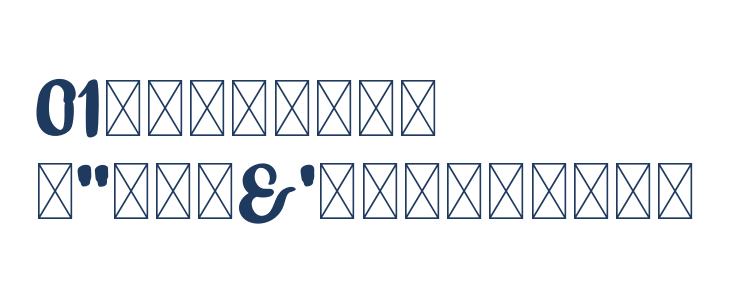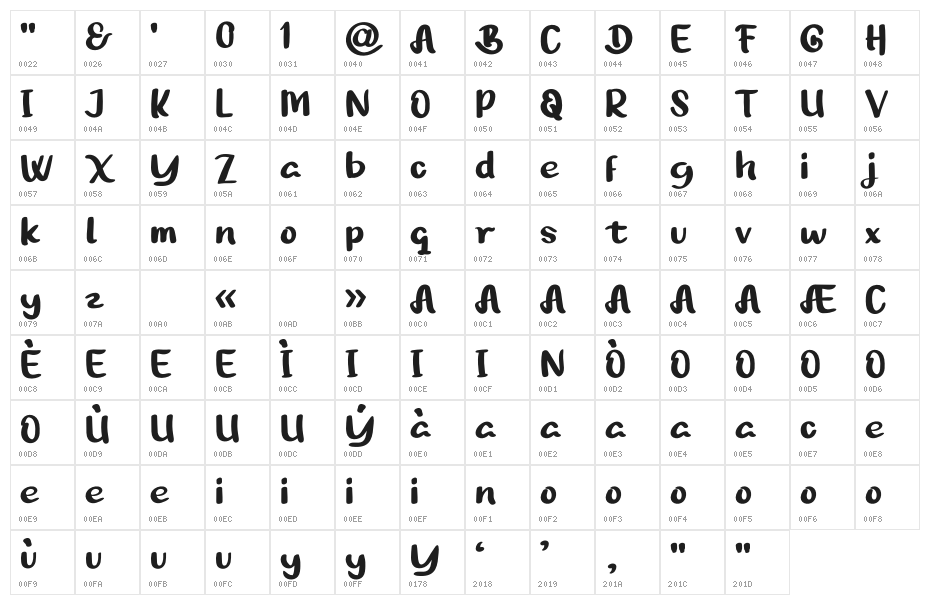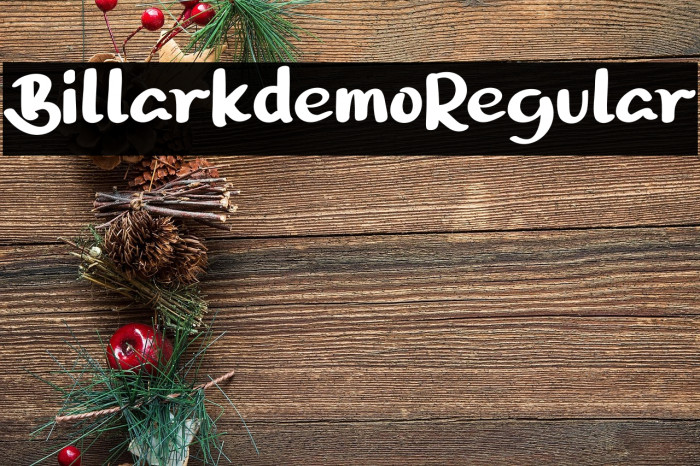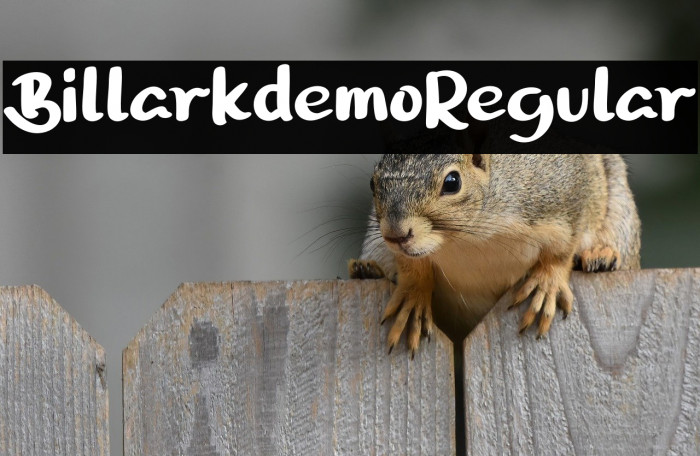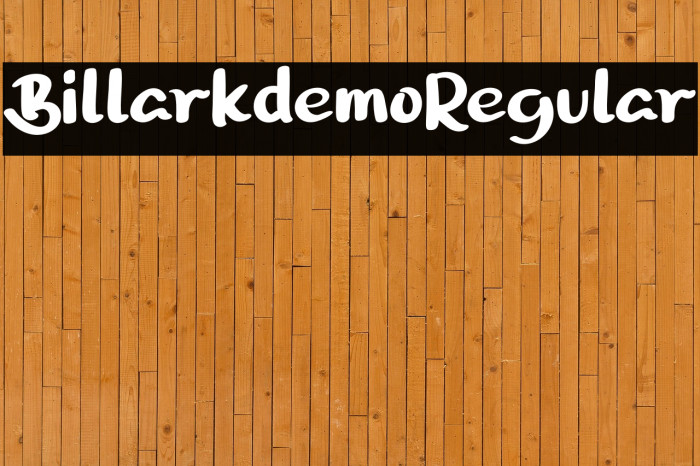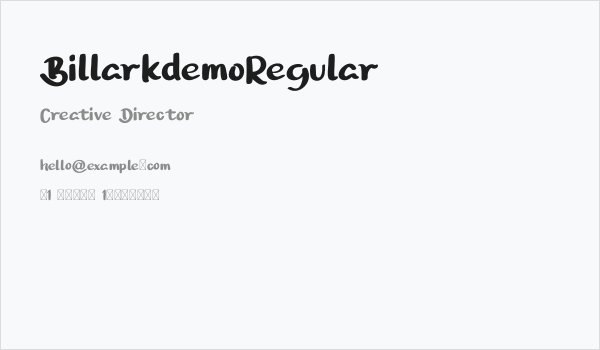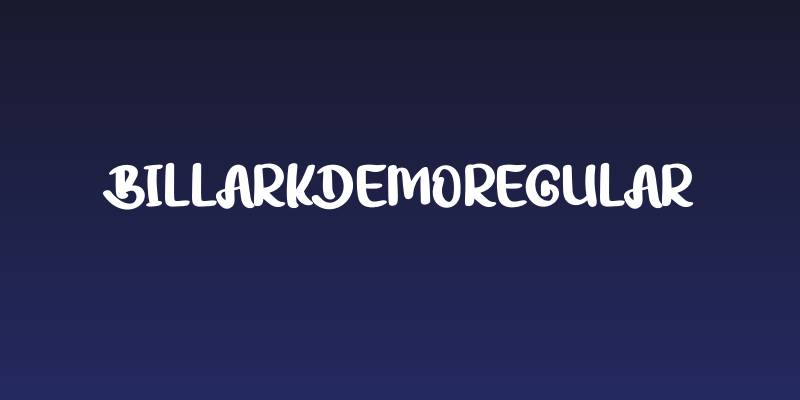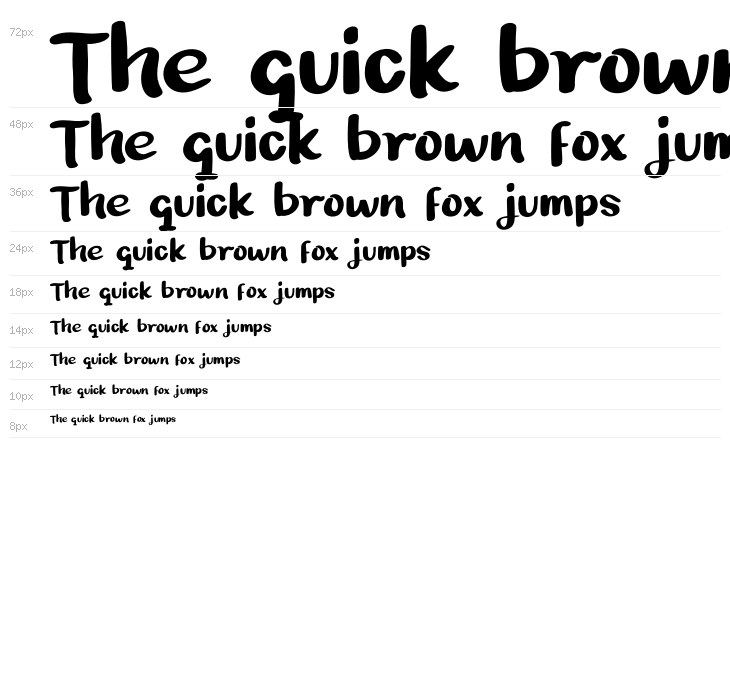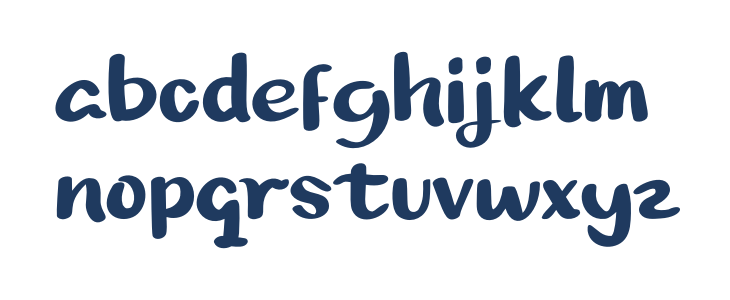
BillarkdemoRegular Font
BillarkdemoRegular Description
This font features a bold and playful style with rounded edges and a handwritten feel. The uppercase letters are slightly larger and more pronounced, while the lowercase letters maintain a consistent flow and rhythm. The characters exhibit a sense of movement, with some letters having unique flourishes that add to the overall charm. The numbers are bold and clear, making them easily readable. Special characters are designed to match the playful aesthetic, ensuring a cohesive look across all text elements.
| Proposed Projects | Ideal for children's books, playful branding, greeting cards, and creative posters. |